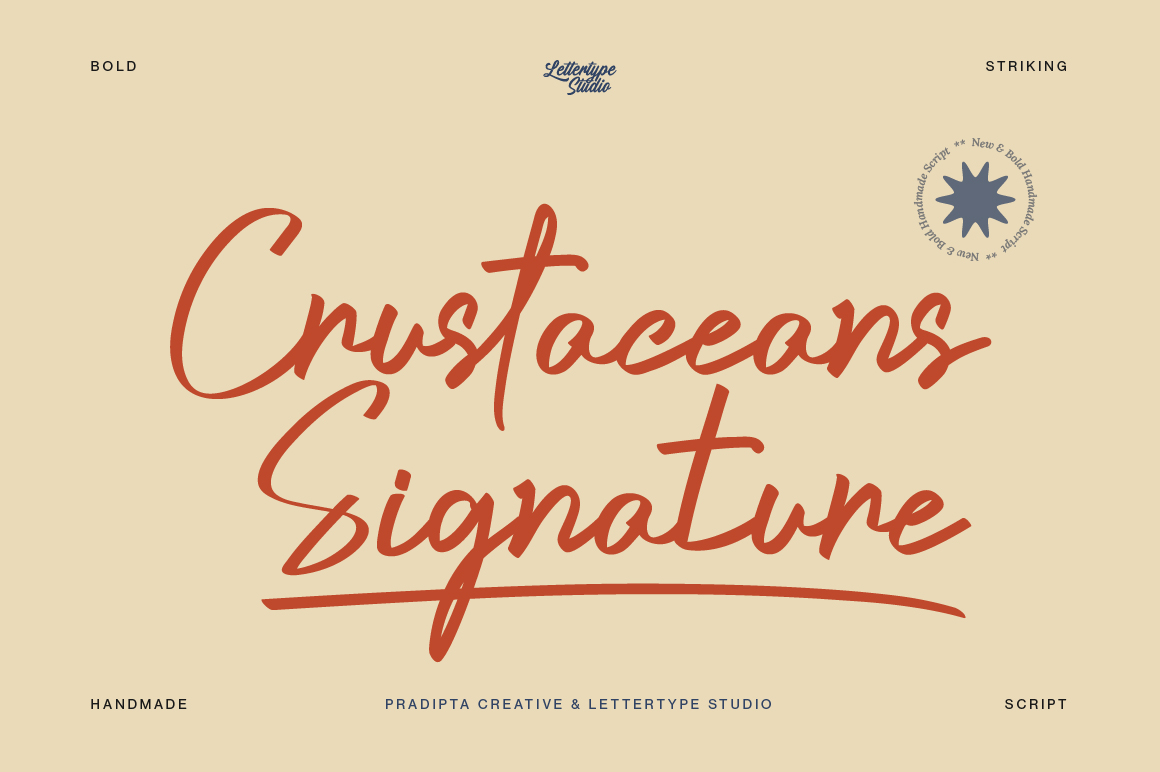
Crustaceans Signature Bold Script
Introducing our new bold, striking, and handmade script font Crustaceans Signature.
Crustaceans Signature is perfect for photography, watermark, social media posts, advertisements, logos & branding, invitation, product designs, label, stationery, wedding designs, product packaging, subheader or header, special events, or anything that need bold script taste.
• Lowercase, Uppercase, and Ligatures
• Numerals & Punctuation
• Accented Characters
• Multiple Languages Supported